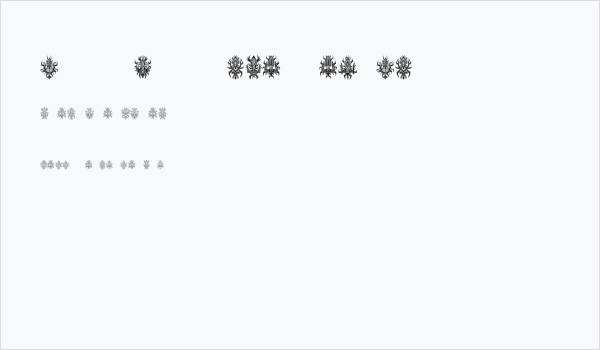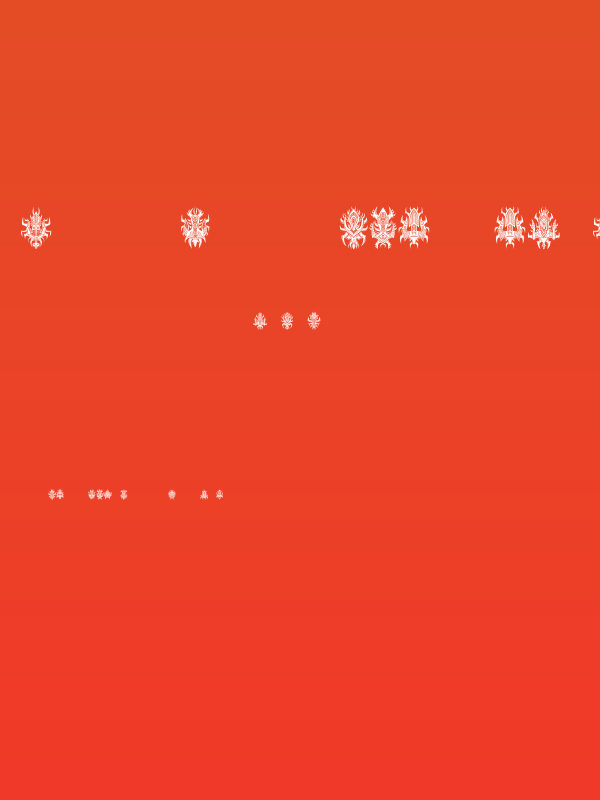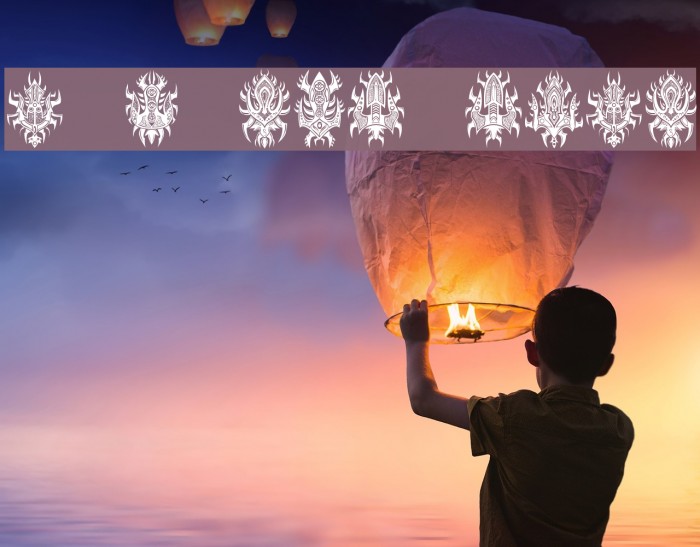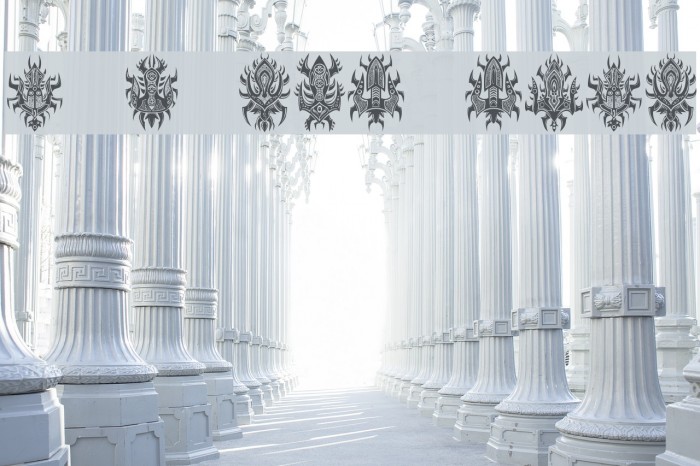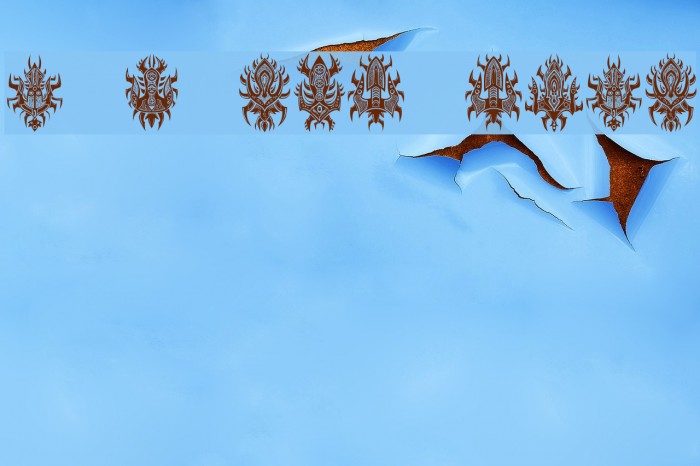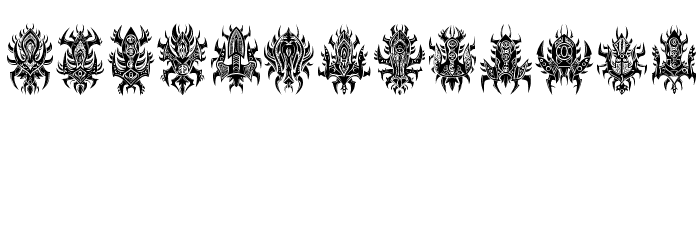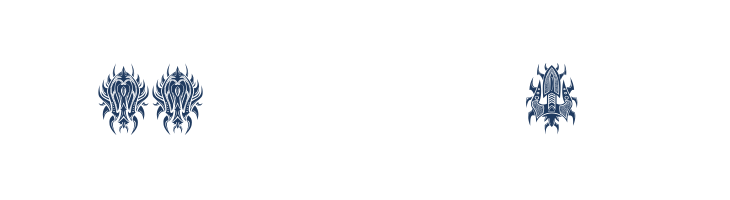
Lost in Space Regular Font
This font features highly decorative and intricate designs that resemble tribal or alien motifs. Each character is encapsulated within a complex, symmetrical pattern that gives it a unique, otherworldly appearance. The designs are bold and dense, with sharp edges and elaborate details that create a sense of depth and texture. The overall aesthetic is both futuristic and ancient, combining elements of sci-fi and traditional art forms. The font's complexity makes it more suitable for artistic or thematic projects rather than practical text applications.
| Use Case | Logos, Posters, Artistic projects |
| Proposed Projects | Ideal for use in sci-fi themed posters, album covers, tattoos, or as decorative elements in graphic design projects. |